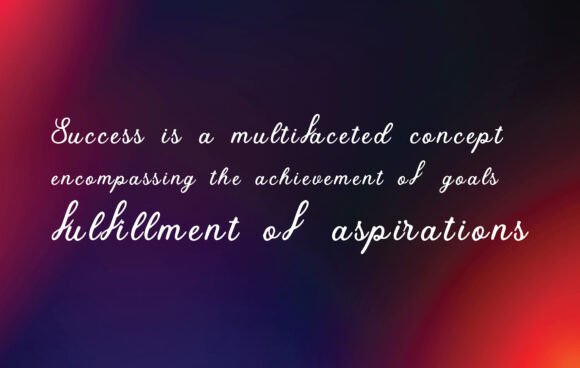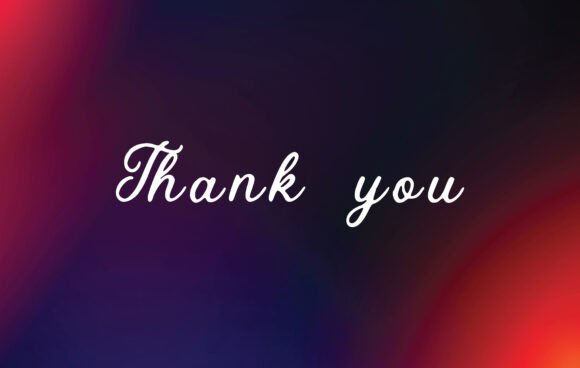
Unleash Your Creativity with the Avyaan Font
Have you ever found yourself stuck in a creative rut, unable to bring your ideas to life? You’re not alone. As designers, we’ve all been there. But what if I told you that there’s a secret to unlocking your full creative potential? It starts with the right tools, and one font stands out from the rest: the Avyaan Font.
This beautiful handwritten font is more than just a pretty face – it’s a game-changer. With its unique blend of elegance and playfulness, the Avyaan Font is the perfect choice for creating eye-catching logos, branding, and quotes that truly stand out. Whether you’re a seasoned designer or just starting out, this font is a valuable addition to your toolkit. So why settle for ordinary when you can create something extraordinary with the Avyaan Font?
Key Features of Avyaan Font
- Unique Characteristics: Avyaan Font boasts a unique blend of modern and traditional elements, making it perfect for creating a distinctive and eye-catching visual identity.
- Language Support: The font supports multiple languages, including English, Hindi, and other regional languages, making it a great choice for multilingual designs.
- Font Weight and Style: Avyaan Font offers various font weights and styles, including light, regular, bold, and italic, allowing designers to create a range of visual effects.
- Scalability: The font is highly scalable, making it suitable for use in various design applications, from small text to large headings and titles.
Designer Review: Avyaan Font
Avyaan Font is a unique and elegant script font that caught my attention immediately. ✨ Its fluid lines and subtle flair make it perfect for creative projects that need a touch of sophistication. I particularly love how it performs in both digital and print applications.
- ✨ Elegant and refined script style
- ✨ Great for creative and high-end projects
- ✨ Performs well in digital and print applications
However, I did encounter some limitations while working with Avyaan Font. ⚠️ The font can be quite challenging to read at small font sizes, and it may require some adjustments to ensure legibility. Additionally, the font family is relatively small, which might limit its versatility in certain projects.
- ⚠️ Challenging to read at small font sizes
- ⚠️ Limited font family size
Overall, Avyaan Font is a beautiful and sophisticated script font that is perfect for creative projects. While it may have some limitations, its unique style and refined feel make it a great addition to any designer’s toolkit.
Getting the Most Out of Avyaan Font
For best results, use the Avyaan font in conjunction with bold or italic styles to add emphasis to your text.
Experiment with different font sizes and colors to create visual hierarchy and balance in your design.
The Avyaan font is ideal for:
• Logos and branding materials
• Digital signage and wayfinding
• Print materials such as business cards and brochures
Alternatives to Avyaan Font
1. Poppins Font
Poppins Font is a sans-serif font designed by Indian Type Foundry. It is a clean and modern font that is ideal for digital interfaces, web design, and mobile apps. Poppins Font is similar to Avyaan Font in its simplicity and minimalism, but it has a more geometric and structured feel.
When to use: Poppins Font is suitable for digital products, e-commerce websites, and modern blogs. It is also a good choice for projects that require a clean and professional look.
Montserrat Font is a sans-serif font designed by Julieta Ulanovsky. It is a urban font inspired by the streets of Montserrat, a neighborhood in Buenos Aires. Montserrat Font is more geometric and structured than Avyaan Font, with a focus on readability and legibility.
When to use: Montserrat Font is suitable for modern and urban designs, such as fashion websites, streetwear brands, and urban magazines. It is also a good choice for projects that require a strong and edgy look.
Open Sans Font is a sans-serif font designed by Steve Matteson. It is a clean and modern font that is highly legible and readable. Open Sans Font is similar to Avyaan Font in its simplicity, but it has a more rounded and friendly feel.
Yes, Avyaan Font is available in various font styles, including Regular, Italic, Bold, and Bold Italic. This allows designers to create visually appealing and balanced typography in their designs.